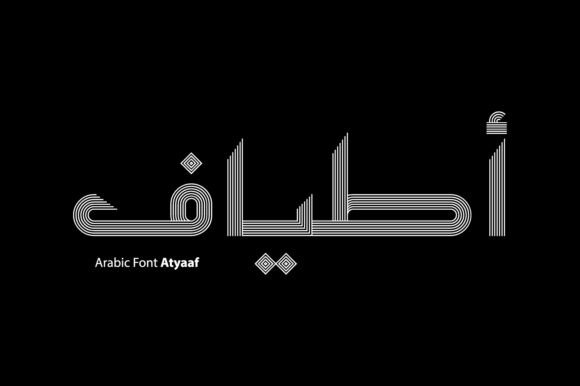
The Atyaaf Font: A Mind-Bending Display Font for Modern Designs
I’ll never forget the time I was working on a project for a trendy boutique hotel, and I was tasked with creating a stunning logo that would capture the essence of their brand. As I scrolled through font after font, nothing seemed quite right. That was until I stumbled upon the Atyaaf font – an Arabic display font that incorporates an optical illusion made of seven parallel lines. In large point sizes, these lines seem to detach from each other, while in small point sizes, they seem to connect. It was love at first sight! 💕
An Honest Review: What I Love and What I Don’t
- Unique and eye-catching design that’s perfect for making a statement
- Suitable for both web and print designs, making it incredibly versatile
- Works beautifully in large and small point sizes, thanks to its clever optical illusion
- Contemporary feel that’s perfect for modern designs and branding
- May not be the best choice for body text or lengthy paragraphs, as its uniqueness may get lost
- Some users may find the optical illusion distracting or too attention-seeking
- Limited use in formal or traditional designs, as it’s quite bold and modern
A Practical Guide: Using Atyaaf in Your Designs
The Story Behind Atyaaf
Atyaaf was designed by a team of creative typographers who wanted to push the boundaries of Arabic font design. Inspired by the geometric patterns and optical illusions found in Islamic art, they created a font that’s both modern and timeless. The result is a stunning display font that’s perfect for making a statement in your designs.
Q: What is the Atyaaf font?
A: Atyaaf is an Arabic display font that features an optical illusion made of seven parallel lines, which seem to detach or connect depending on the font size.
Q: Is Atyaaf suitable for body text?
A: While Atyaaf is a beautiful font, it’s best suited for headlines, titles, and short paragraphs. Its uniqueness may get lost in lengthy body text.
Q: Does Atyaaf support OpenType features?
A: Yes, Atyaaf supports OpenType features, including glyphs and stylistic alternates, which can be accessed in compatible design software.